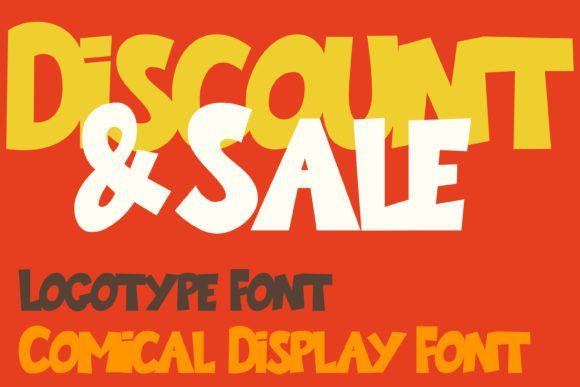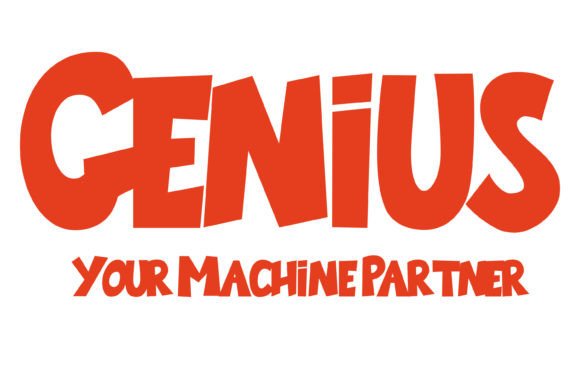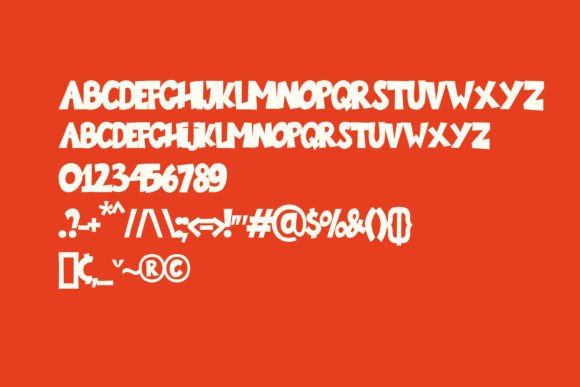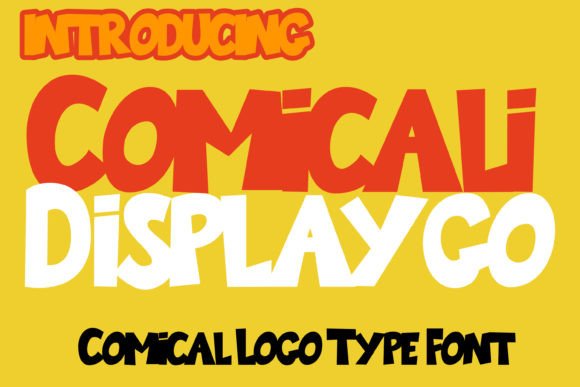
Introducing Comicalidisplaygo Font: The Ultimate Display Font for Creative Projects
Are you tired of using the same old fonts for your creative projects? Look no further! Comicalidisplaygo Font is here to revolutionize your design game with its fun and playful display font style. This incredible font is perfect for designers, crafters, and anyone looking to add a touch of whimsy to their work.
The Versatility of Comicalidisplaygo Font
Comicalidisplaygo Font is a versatile and dynamic font that can be used for a wide range of projects, from posters and flyers to social media graphics and branding materials. Its unique and playful style makes it an excellent choice for designers who want to create eye-catching and engaging content. Whether you’re working on a children’s book, a craft project, or a marketing campaign, Comicalidisplaygo Font is sure to elevate your creation and make it stand out from the crowd.
Key Features of Comicalidisplaygo Font
- Fun and Playful Style: Comicalidisplaygo Font boasts a fun and playful style that’s perfect for creative projects that require a touch of whimsy.
- Display Font: This font is specifically designed as a display font, making it ideal for headlines, titles, and other attention-grabbing elements.
- Versatile: Comicalidisplaygo Font can be used for a wide range of projects, from digital designs to print materials.
- Easy to Read: Despite its playful style, Comicalidisplaygo Font is easy to read, making it perfect for body text and captions.
Benefits of Using Comicalidisplaygo Font
So, why should you choose Comicalidisplaygo Font for your next project? Here are just a few benefits of using this amazing font:
- Adds Visual Interest: Comicalidisplaygo Font adds a touch of visual interest to any project, making it perfect for designers who want to create engaging and eye-catching content.
- Enhances Creativity: This font’s playful style encourages creativity and experimentation, making it perfect for crafters and designers who want to push the boundaries of their work.
- Perfect for Branding: Comicalidisplaygo Font is an excellent choice for branding materials, such as logos, business cards, and letterheads.
Tips for Using Comicalidisplaygo Font
To get the most out of Comicalidisplaygo Font, here are a few tips to keep in mind:
- Use it as a Display Font: Comicalidisplaygo Font is specifically designed as a display font, so use it to grab attention and add visual interest to your project.
- Experiment with Colors: This font looks great in a variety of colors, so don’t be afraid to experiment and find the perfect hue for your project.
- Pair it with Other Fonts: Comicalidisplaygo Font pairs well with other fonts, so try combining it with a serif or sans-serif font to create a unique and interesting look.
Comicalidisplaygo Font is a fun and playful display font that’s perfect for designers, crafters, and anyone looking to add a touch of whimsy to their work. With its versatile style, ease of use, and range of benefits, this font is sure to become a staple in your font library. So why wait? Download Comicalidisplaygo Font today and start creating amazing projects that will leave a lasting impression!